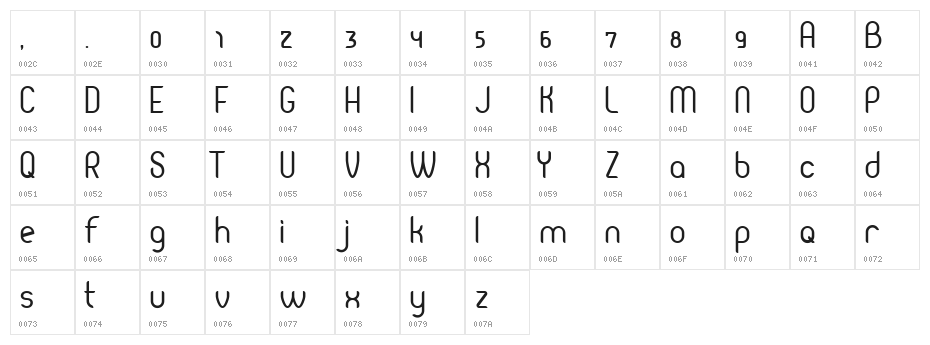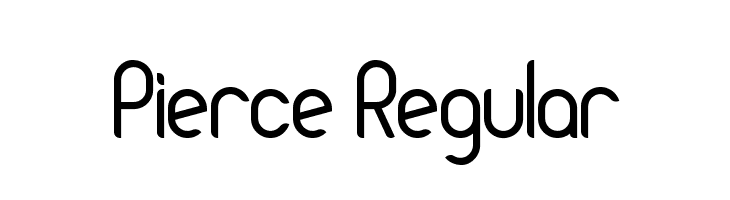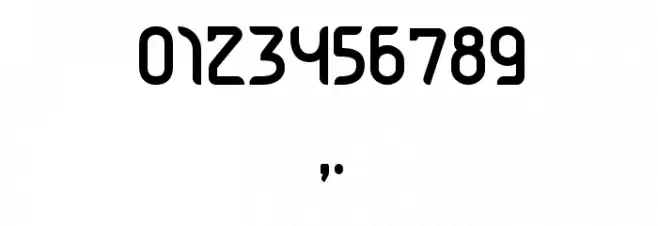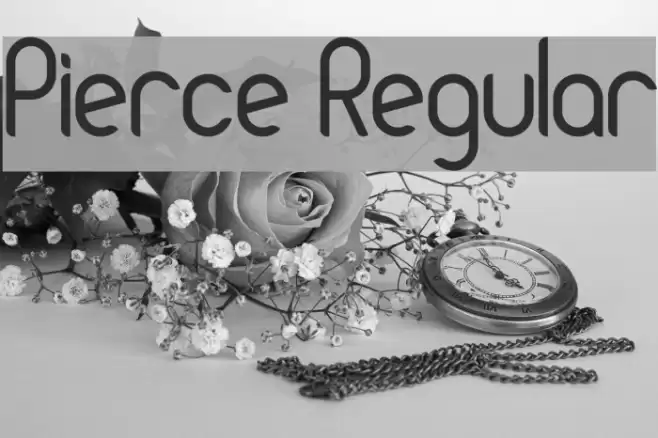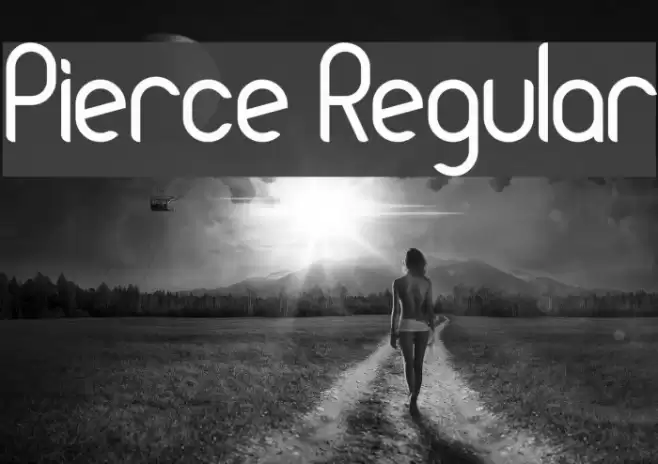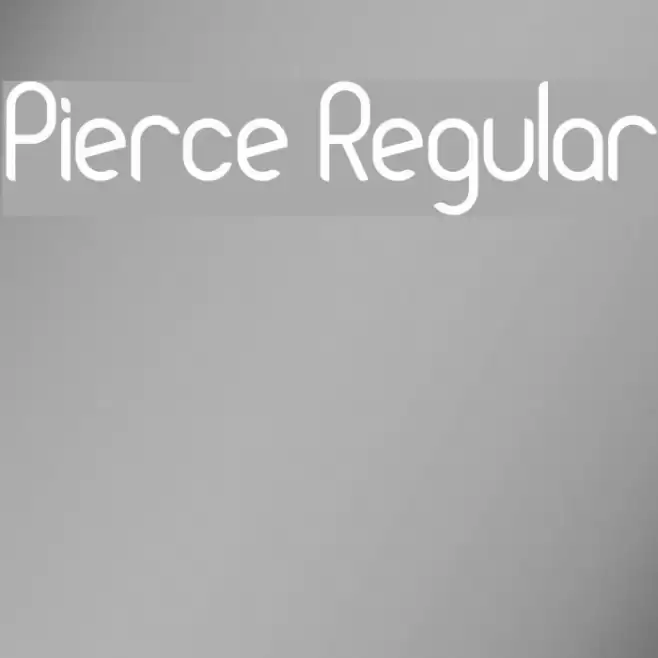
Pierce Regular Font
Pierce Regular Description
This font features a modern and sleek design with rounded edges and a geometric structure. The uppercase letters are uniform in height, creating a harmonious and balanced appearance. The lowercase letters maintain a consistent style, with smooth curves and a clean finish. The numerals are distinct and easily readable, matching the overall aesthetic of the alphabet. Special characters are designed to complement the letterforms, ensuring a cohesive look across all glyphs. The font's simplicity and clarity make it versatile for various design applications.